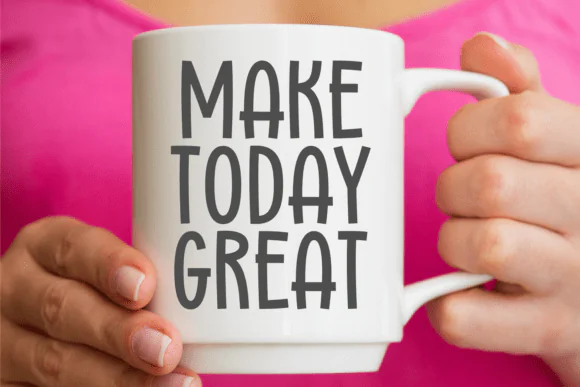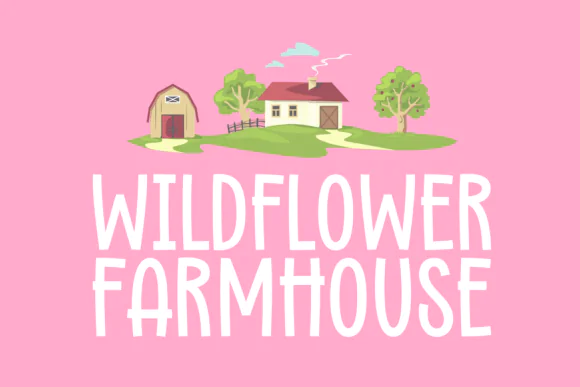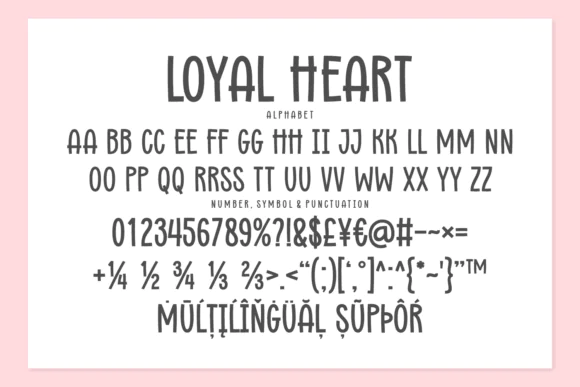
Spread warmth, love, and cheerful personality through your designs with Heart Font, a fun display typeface created with a friendly hand-drawn look. With its tall, slightly irregular letterforms and charming handmade feel, this font is perfect for creative projects that need a playful, approachable, and heartfelt visual style.
Heart Font is designed to feel lively, honest, and full of character. Its clean yet whimsical structure makes it useful for both digital and printed projects, including custom t-shirts, tote bags, greeting cards, classroom materials, children’s book titles, nursery wall art, quote graphics, craft shop logos, food blog headlines, stickers, product labels, and personalized gift tags.
This font works beautifully with bright primary colors, soft earthy tones, cute illustrations, playful layouts, and DIY-style designs. Whether you are creating a love-themed card, a handmade product label, a classroom poster, or a fun social media quote, Heart Font helps your message feel warm, friendly, and memorable.
Fun, hand-drawn, playful, whimsical, tall, irregular, friendly, warm, charming, approachable, casual, heartfelt, cute, clean, and expressive.